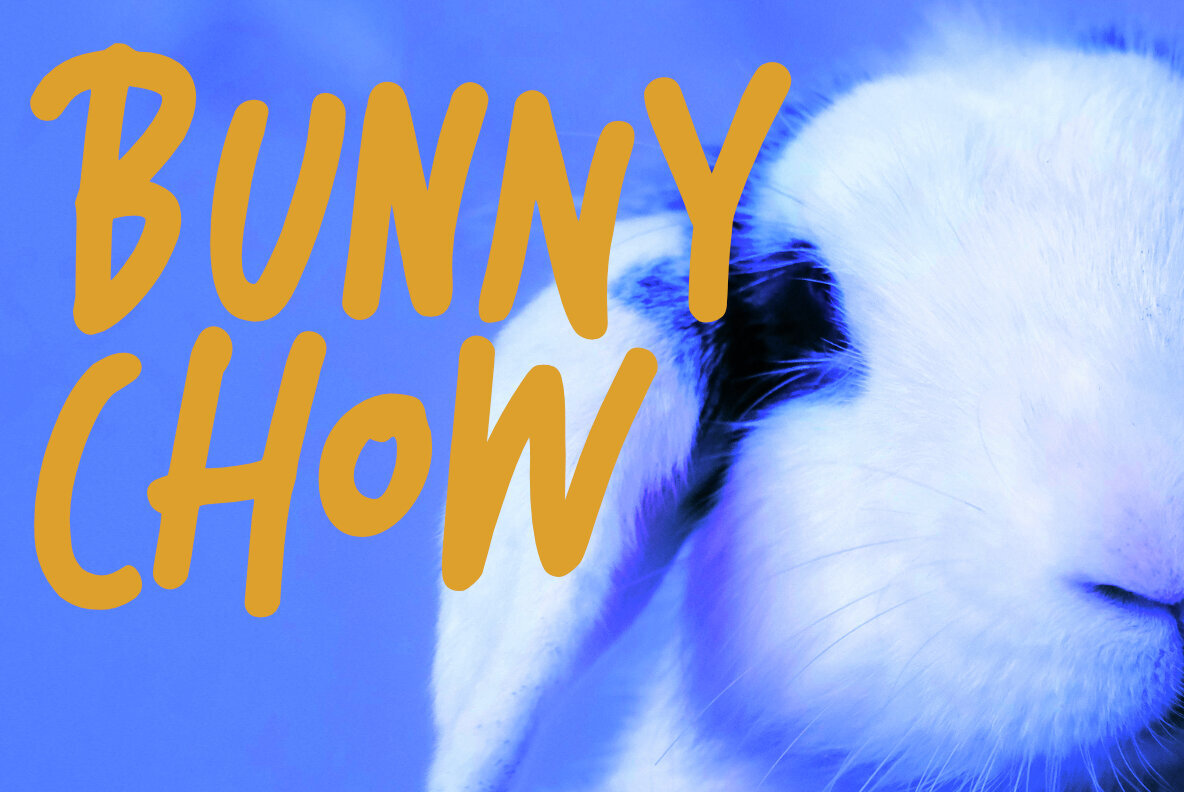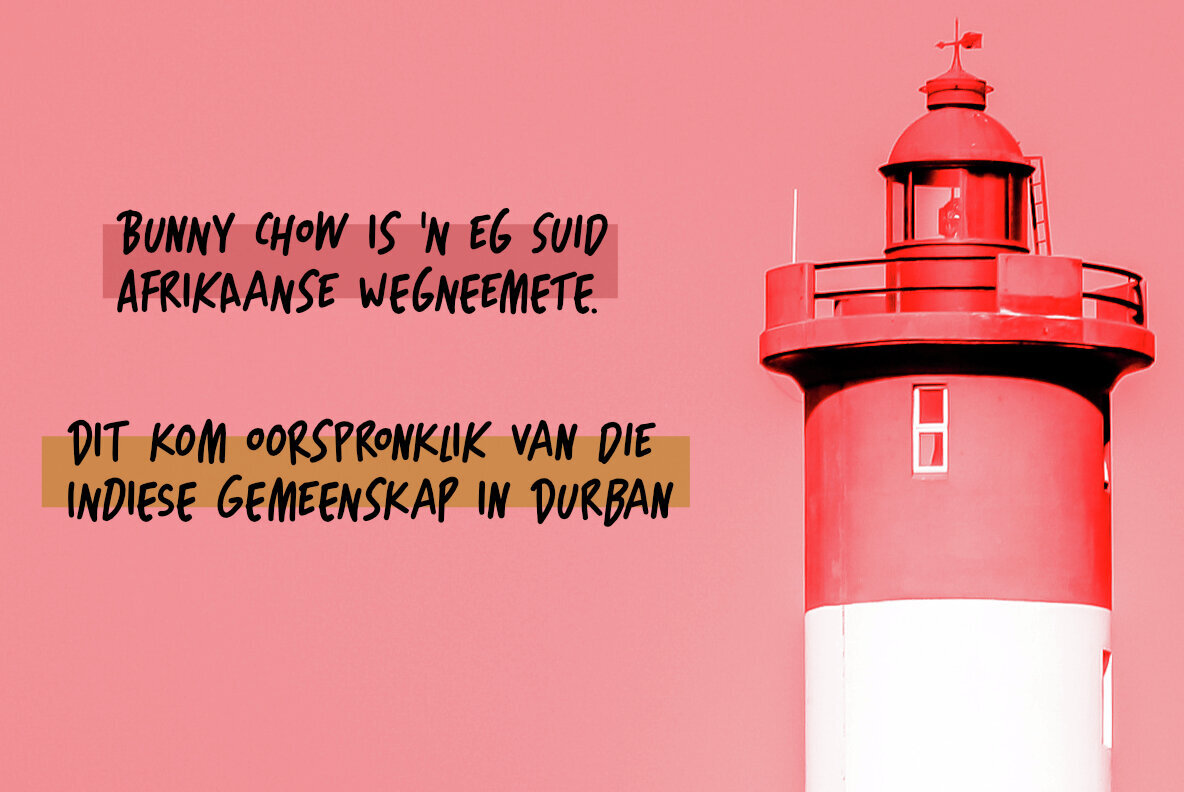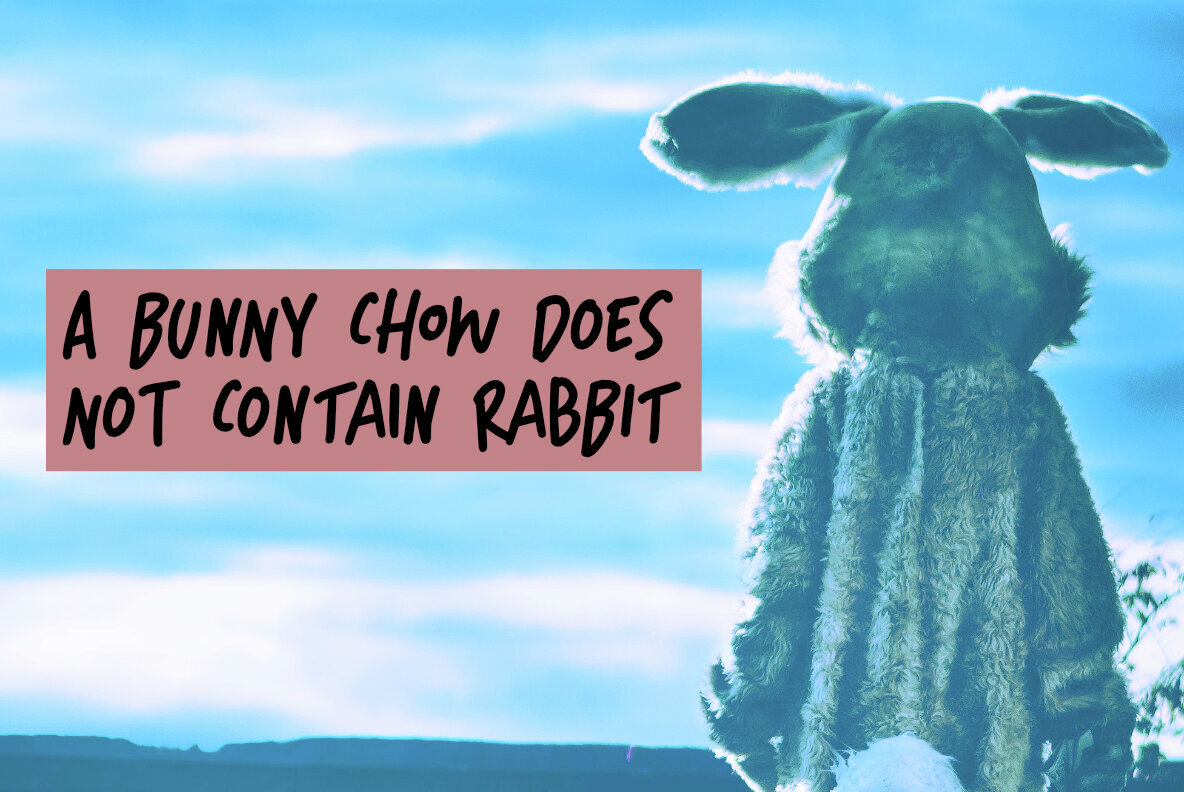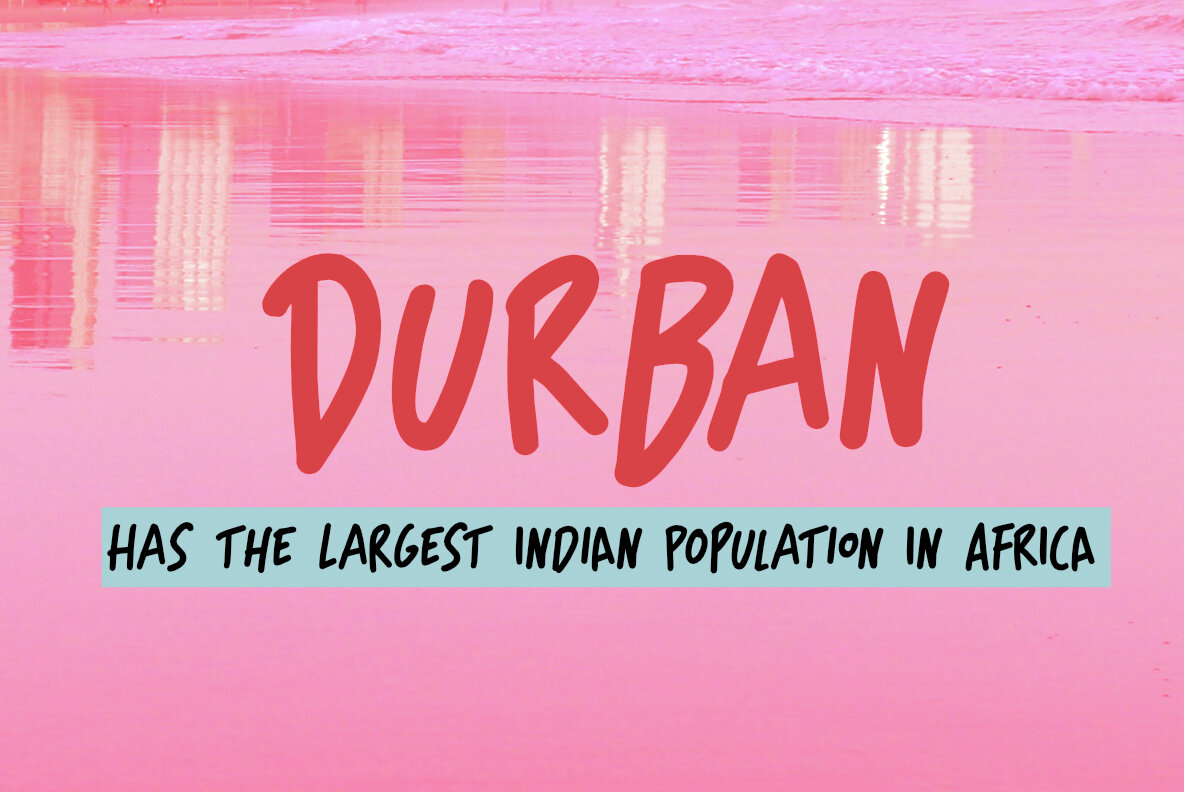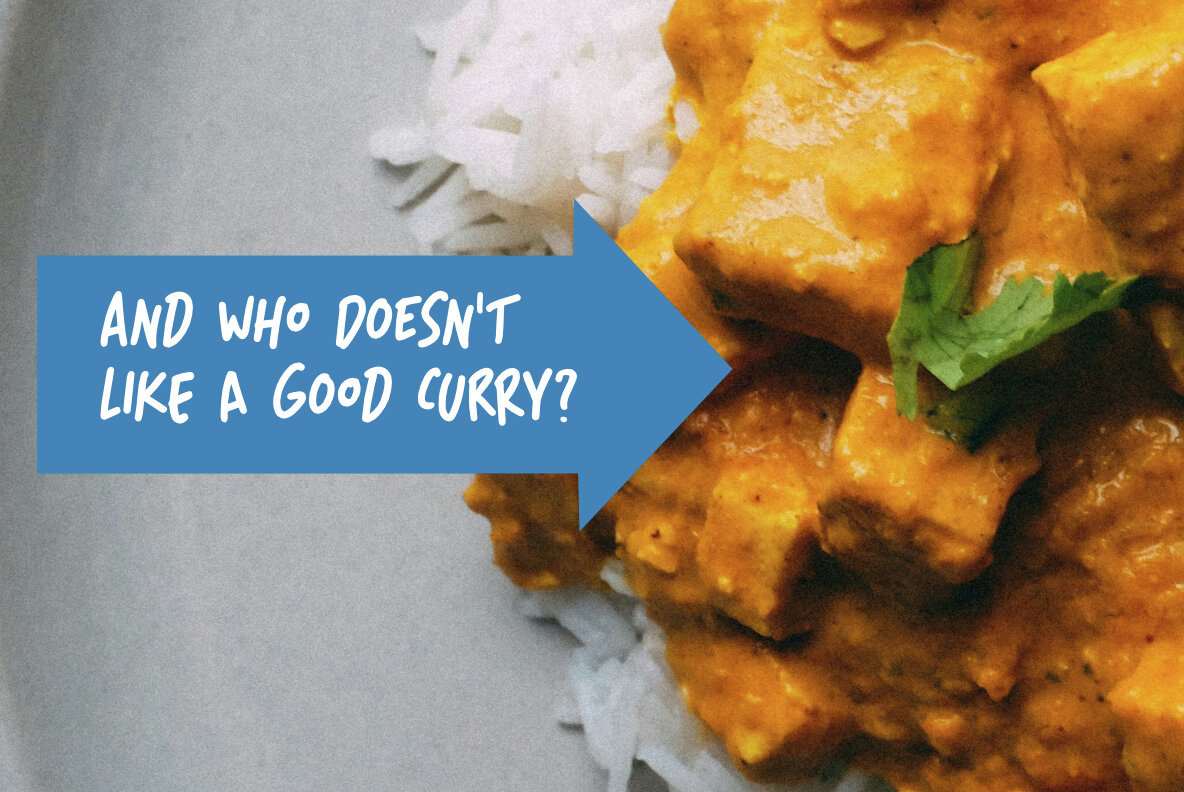
Bunny Chow Font
A Bunny Chow is a South-African/Indian snack. It consists of half a hollowed out loaf of white bread, filled with chicken, beef or mutton curry. It is crazy delicious! I have had a couple when I was hitch-hiking through South Africa (a looooong time ago) and I have been craving one ever since. Bunny Chow font is a handmade font. Kind of loose, kind of crazy, but delicious and once used, you’ll want more!